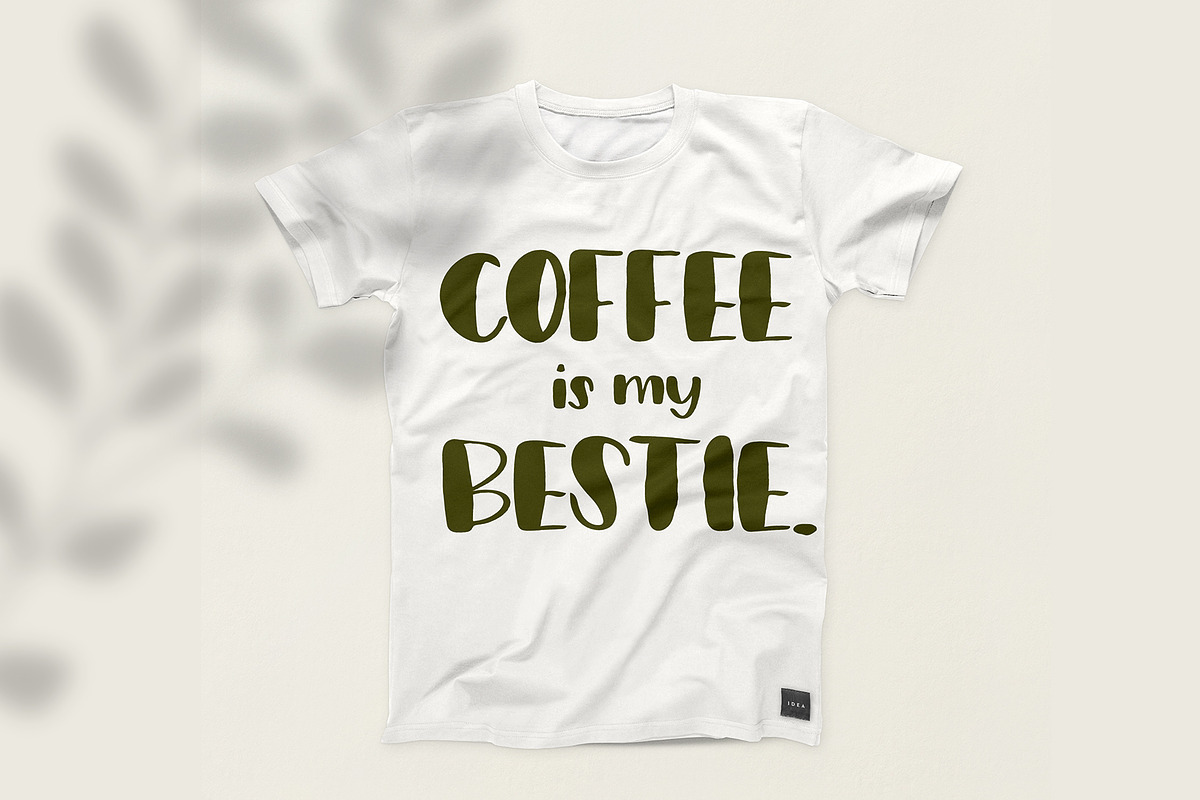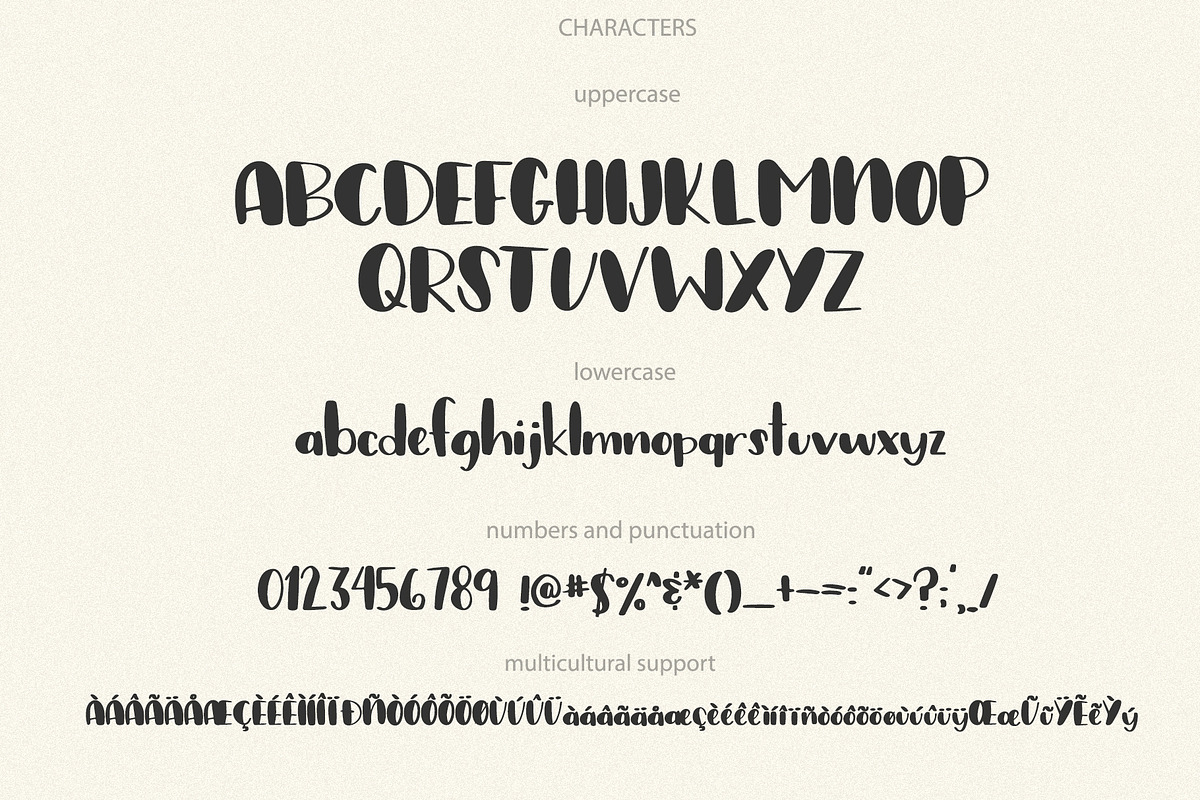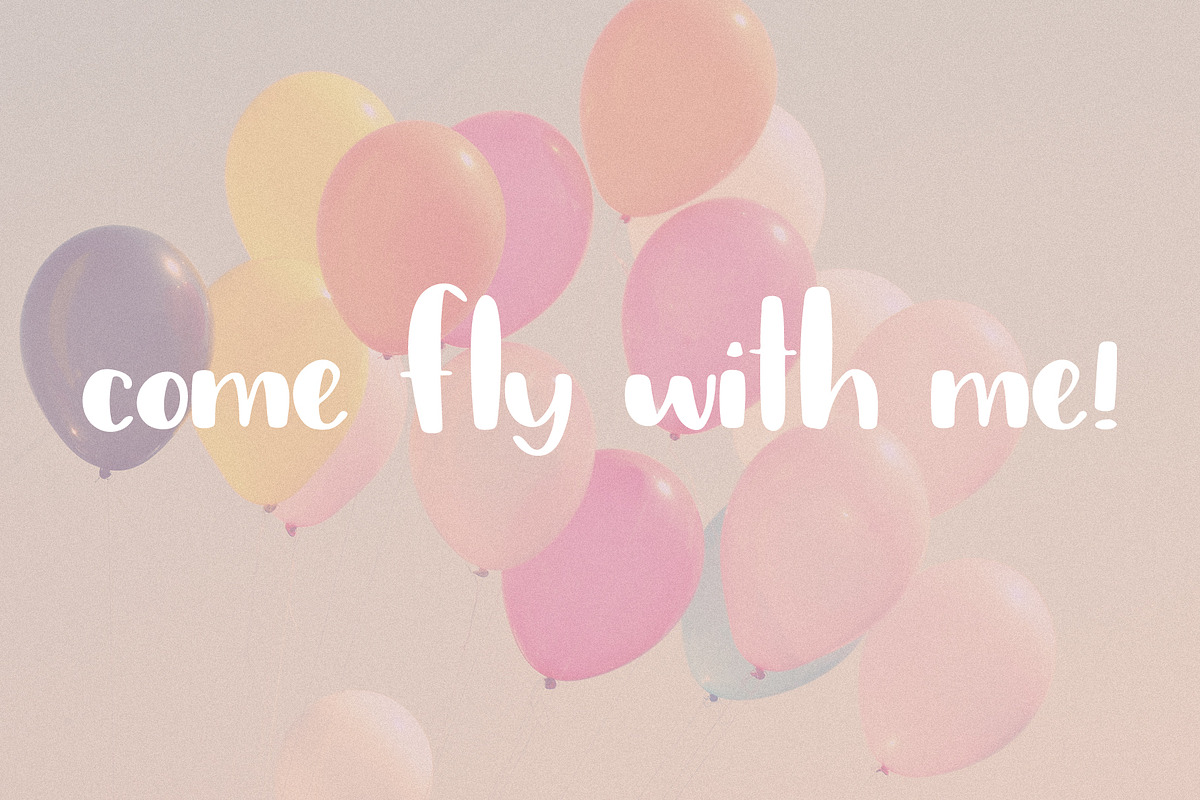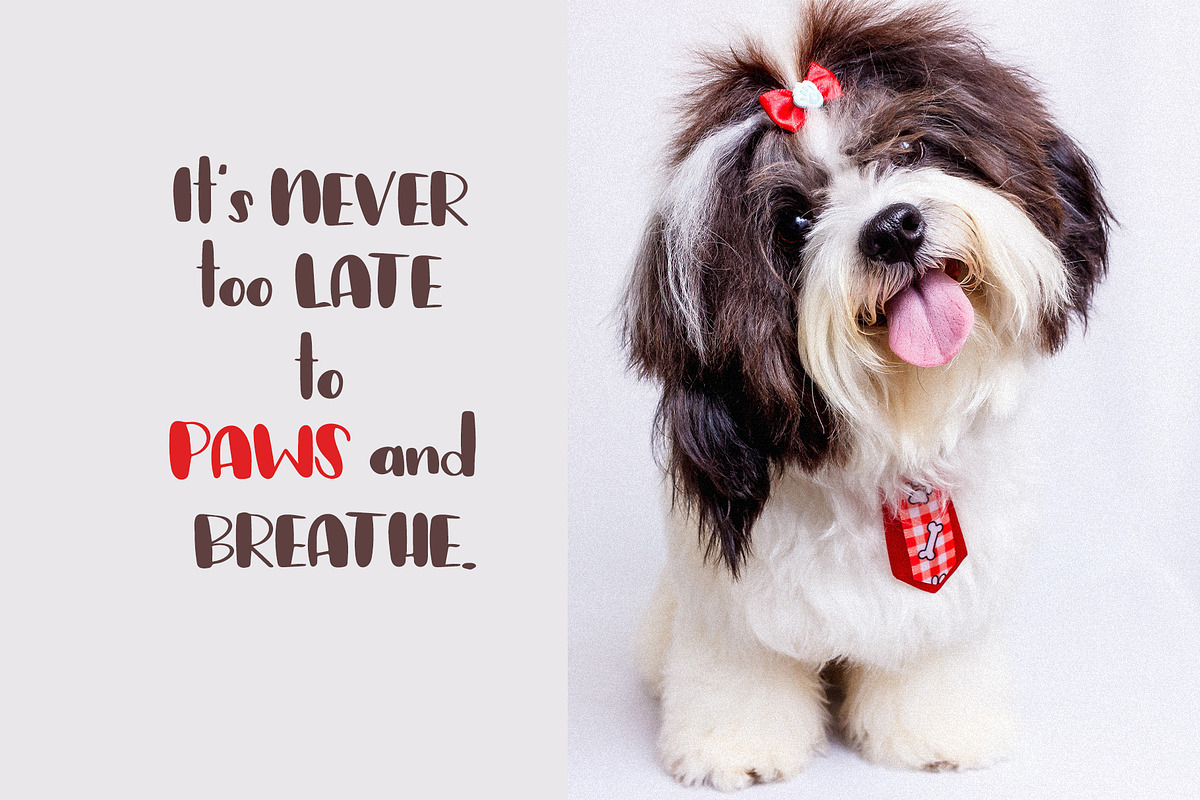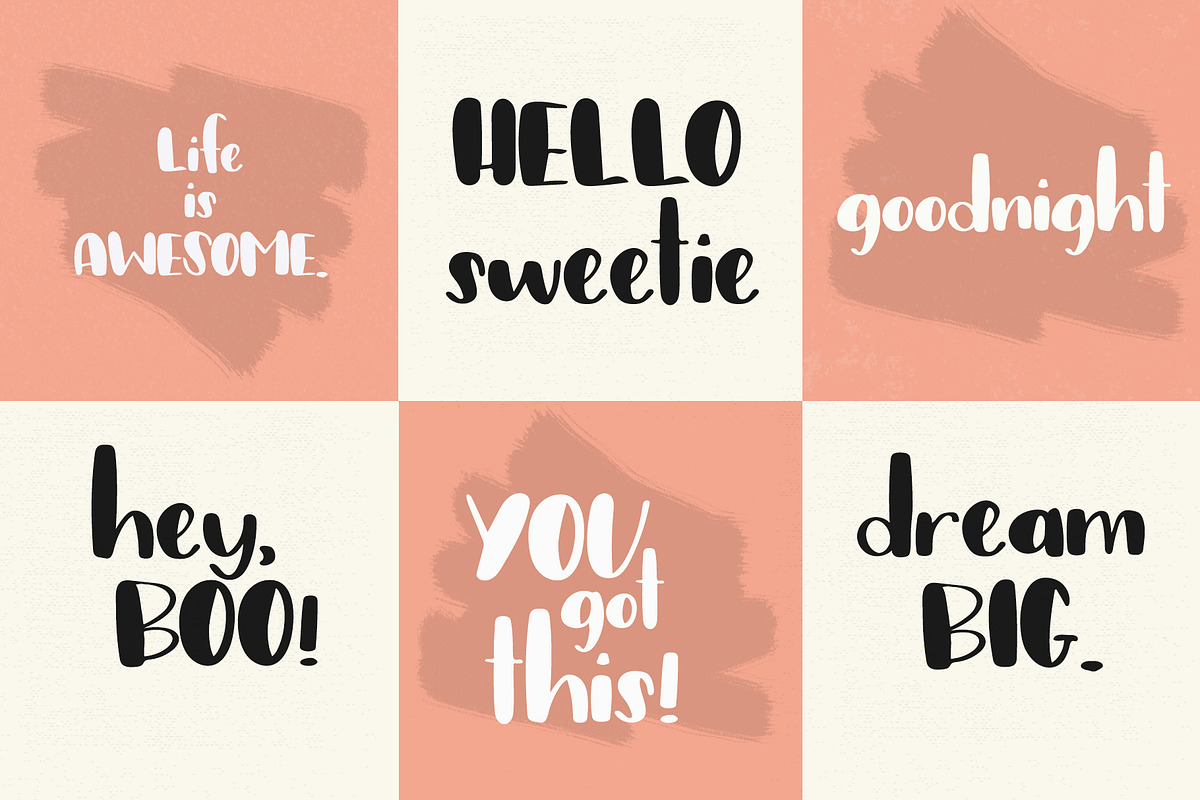
Jumpstart Hand written Font
Jumpstart is a fun and bold hand-lettered font. This font is perfect for quotes, cards, blogs, logos, and more. Your purchase includes a TTF and OTF file. The font has accent characters, uppercase, lowercase, punctuation, and numbers. Enjoy.
- The font has accent characters, uppercase, lowercase, punctuation, and numbers.
Why Jumpstart Hand written Font is worth a look
Jumpstart Hand written Font by Sweet Fig fits naturally into Branding, posters, packaging, typography.